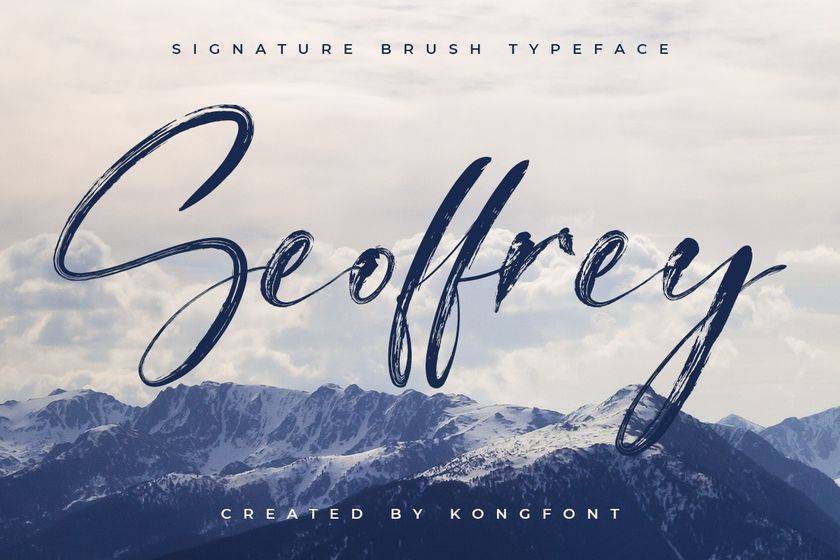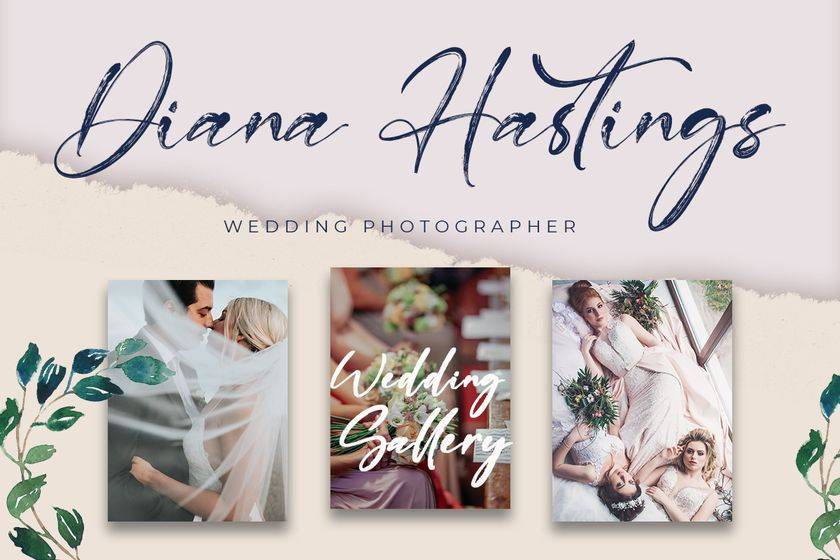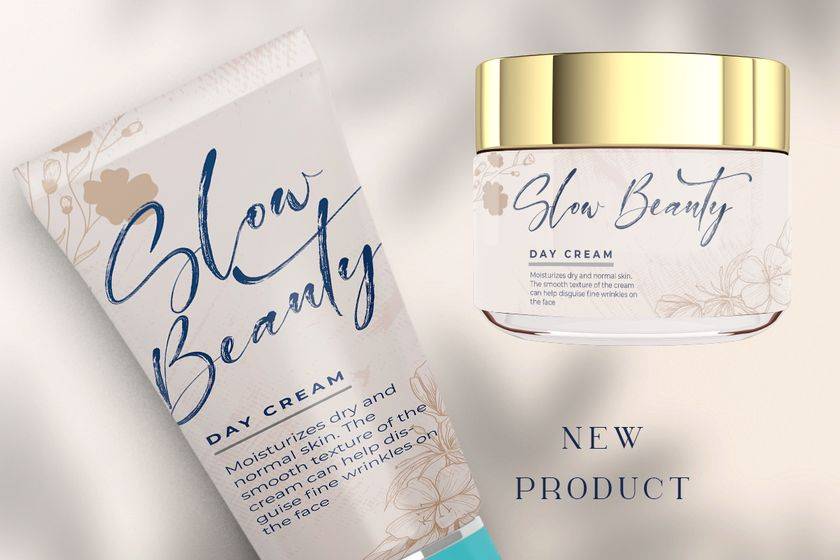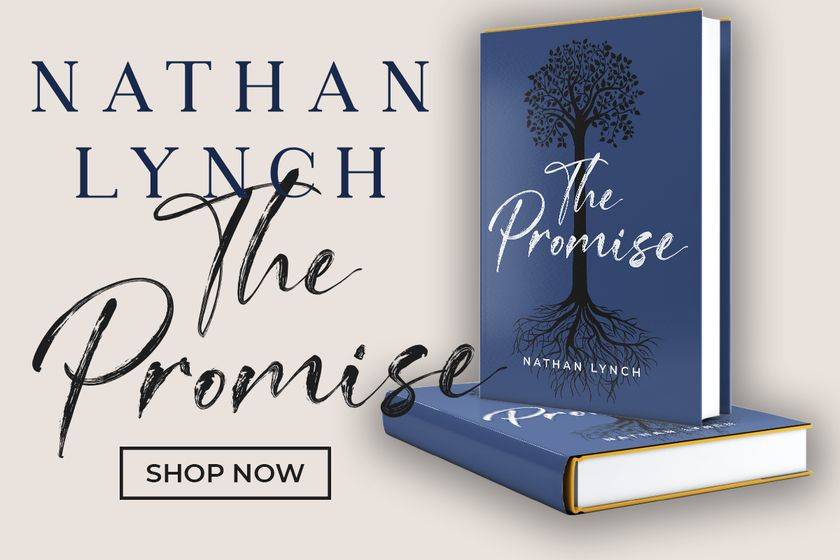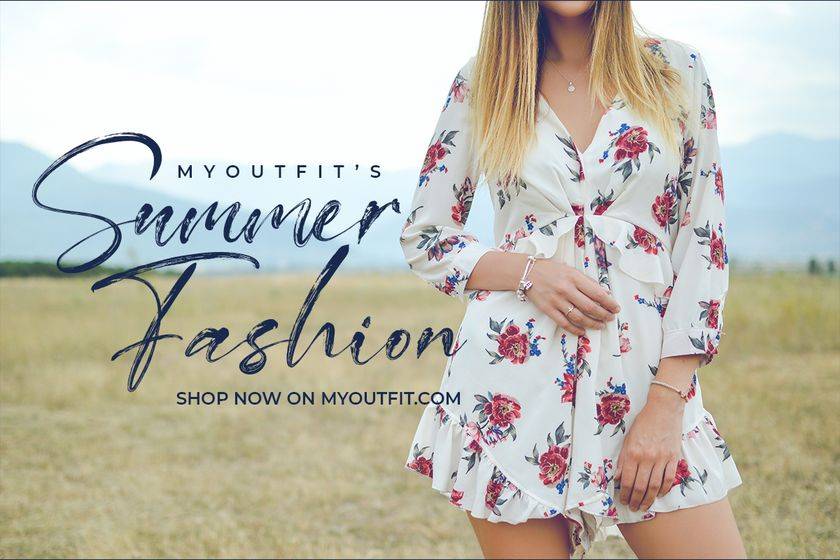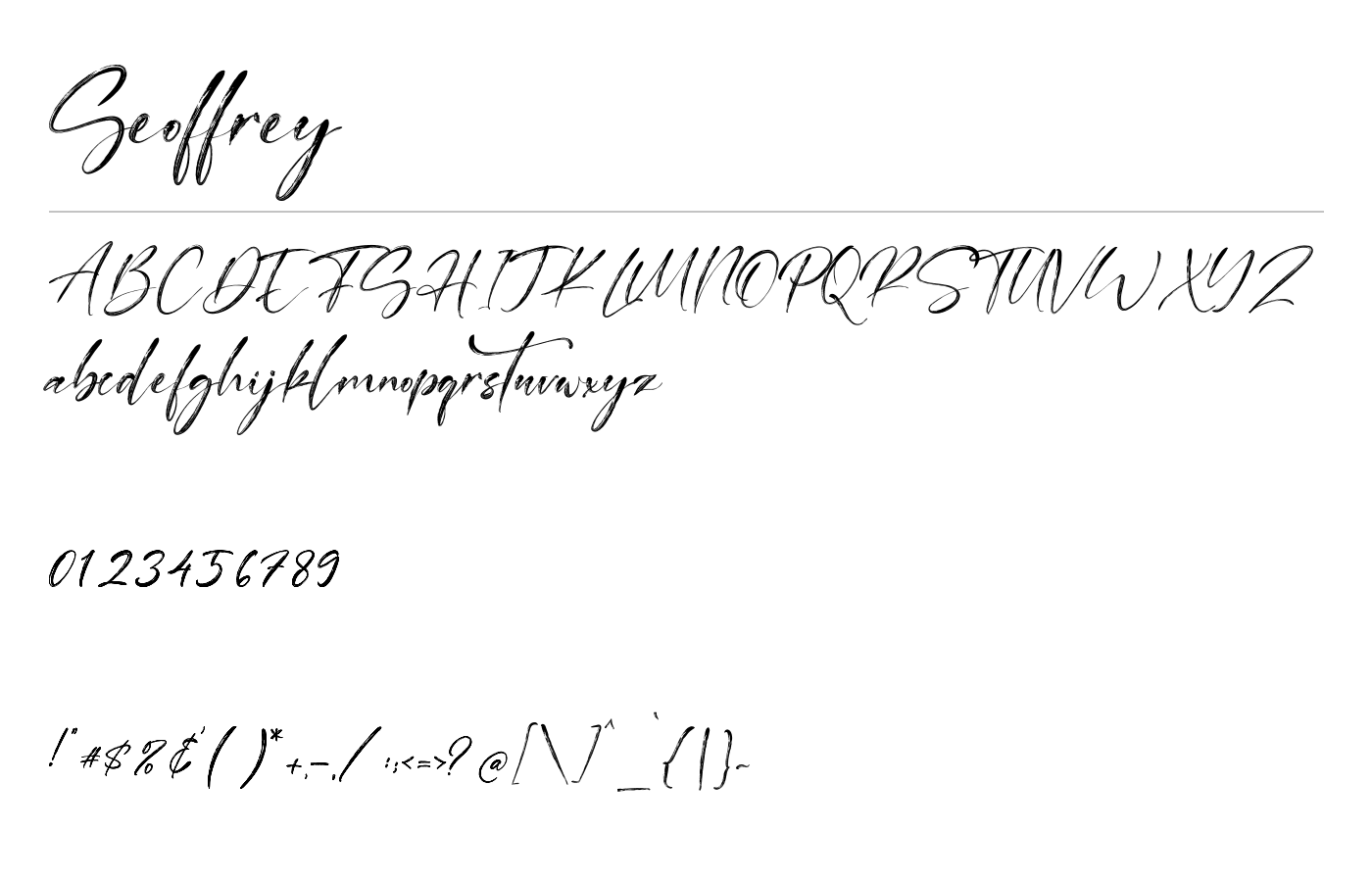
Geoffrey Font is a delicate and elegant script typeface with a hand-painted, brushstroke appearance that brings a personal and artistic touch to any design. Its slender, fluid letterforms with varied stroke widths and graceful curves make it ideal for sophisticated branding, invitations, and creative projects seeking a stylish yet approachable feel. This font works beautifully in contexts that benefit from a refined, handwritten look, such as fashion, lifestyle, or boutique marketing materials.
Geoffrey Font
About Geoffrey Font
| Font family | Geoffrey Font |